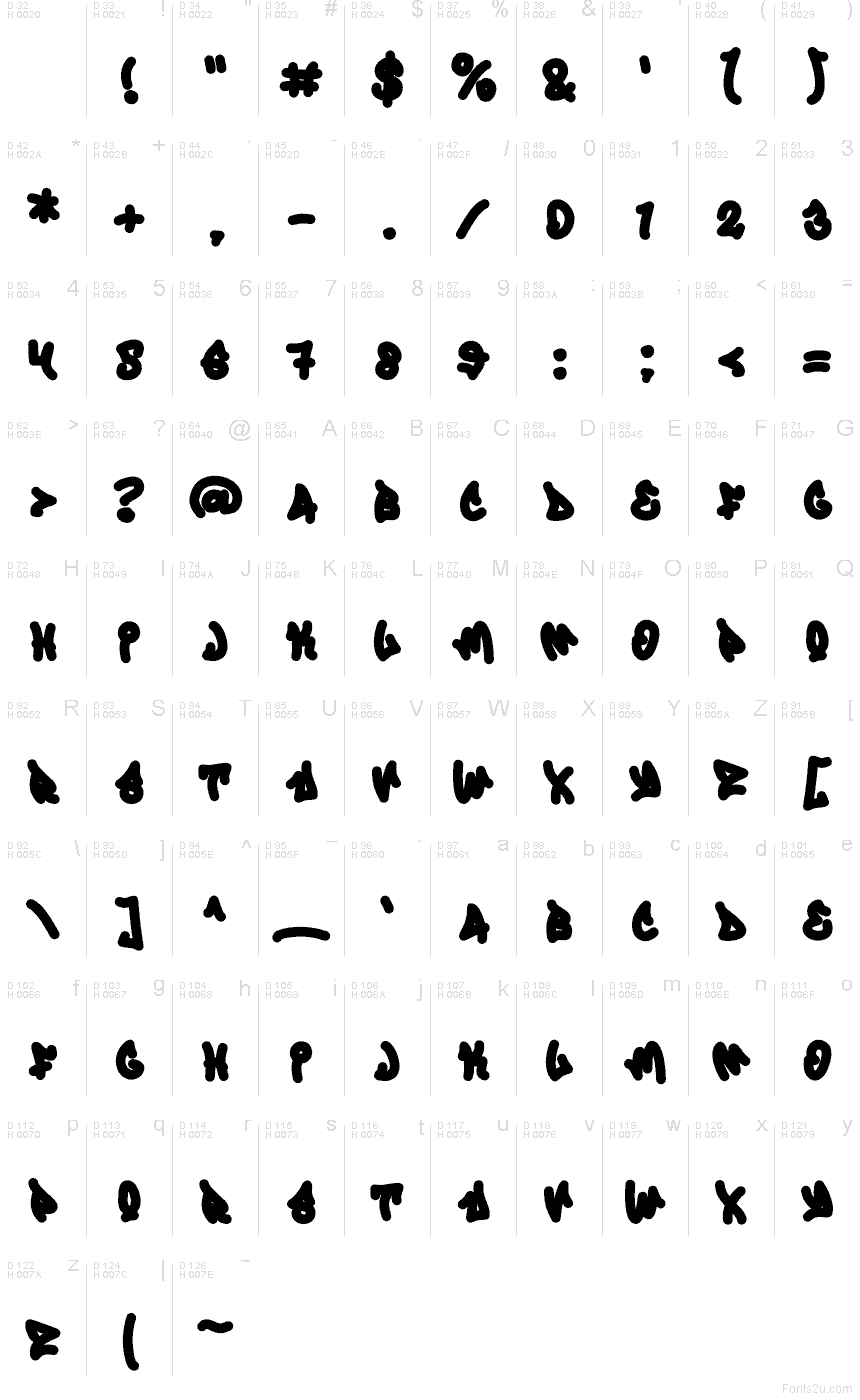
Viper Gear font by Cikareotype Studio is a free graffiti font with thick, inky curves that look like they’ve just been blasted from a fat marker. Each letter swells and squeezes like coiled rubber hose, giving words a chunky, almost inflatable feel that still hits with attitude. The tight spacing and rolling rhythm make your text feel like a single, flowing tag climbing across the surface.
Using Viper Gear, you get an instant hit of street energy that works beautifully for album covers, urban clothing labels, stickers, sneaker drops, YouTube thumbnails, and event posters. This free font really comes alive at larger sizes, where its swollen shapes and soft edges can breathe. For balance, pair Viper Gear with a clean, narrow sans serif in smaller text to keep the chaos focused and the message loud.